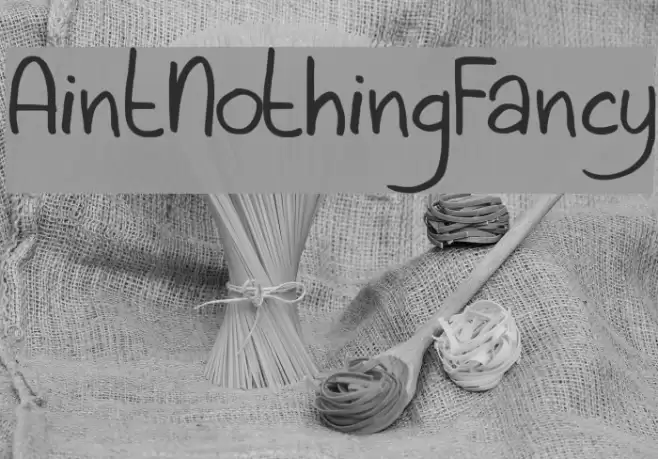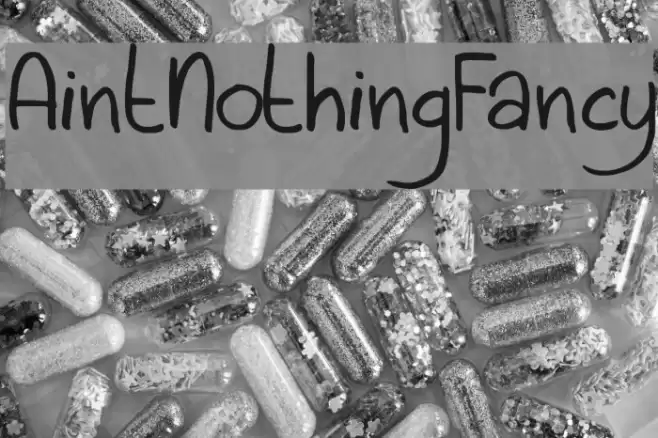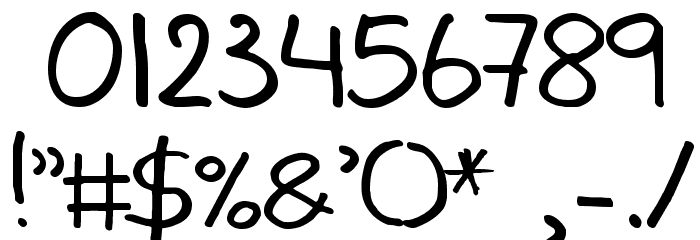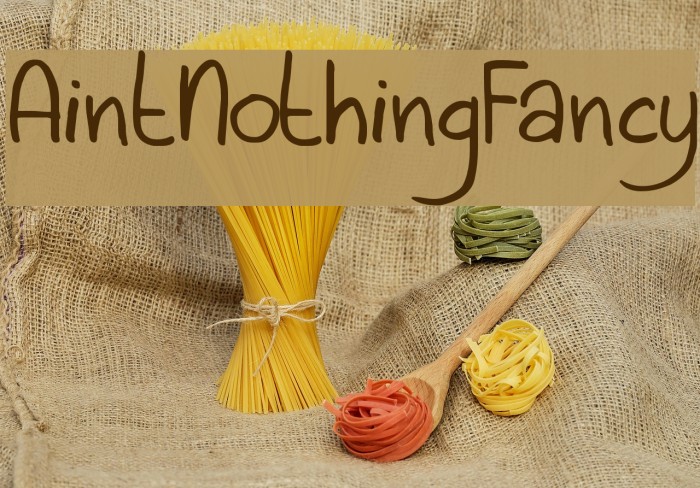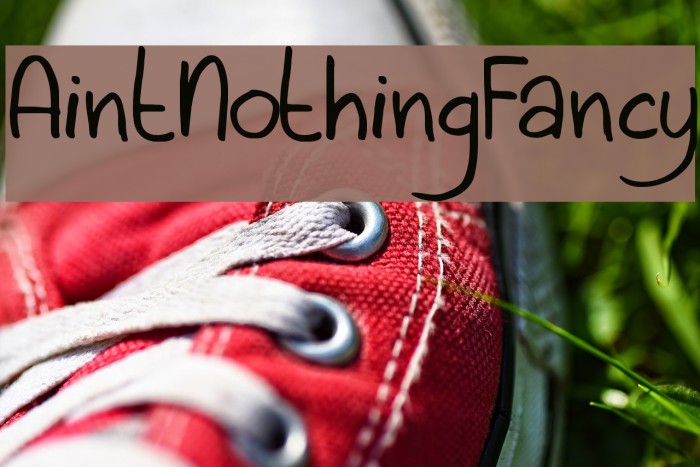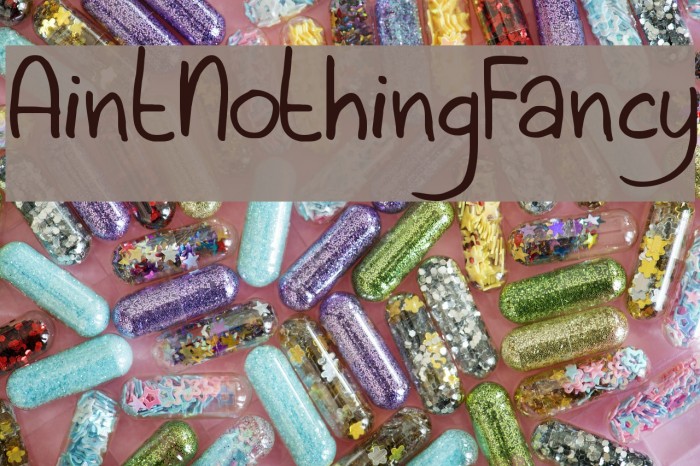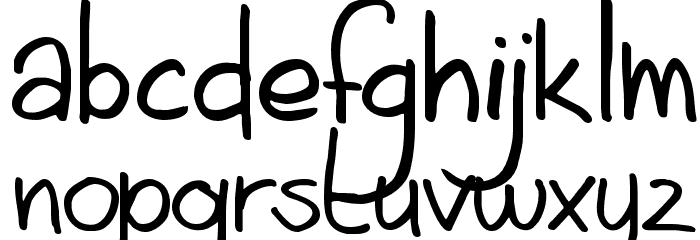
AintNothingFancy Font
AintNothingFancy Description
This font features a playful and casual handwritten style, characterized by its smooth, rounded edges and slightly irregular letterforms that give it a friendly and approachable appearance. The uppercase and lowercase letters maintain a consistent flow, with a slight slant that adds to its informal charm. The numerals and special characters are designed to match the overall aesthetic, ensuring a cohesive look across all text. The font's simplicity and readability make it suitable for a variety of creative projects, where a personal touch is desired.
A playful, casual handwritten font with smooth, rounded edges from Handwritten fonts.
- Proposed Projects: Ideal for greeting cards, children's books, personal branding, and social media graphics.
- Overall Style: Casual
- Use Case: Headlines, Informal text, Creative projects